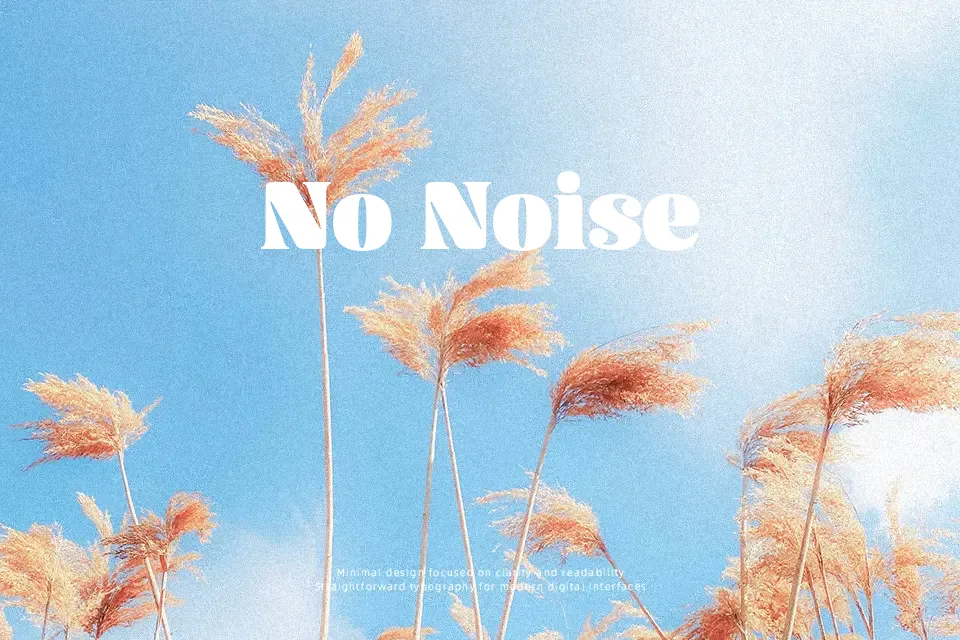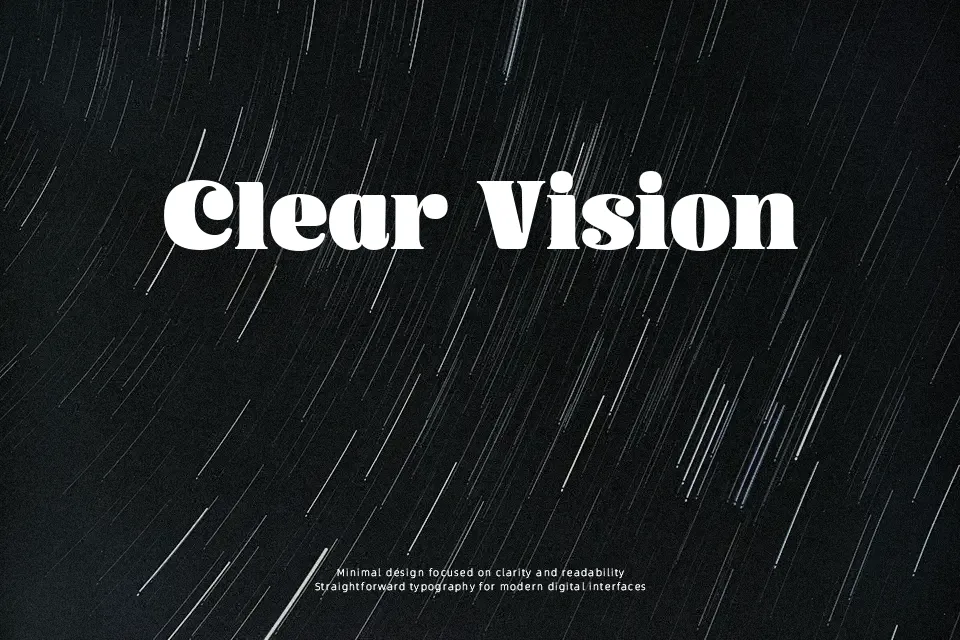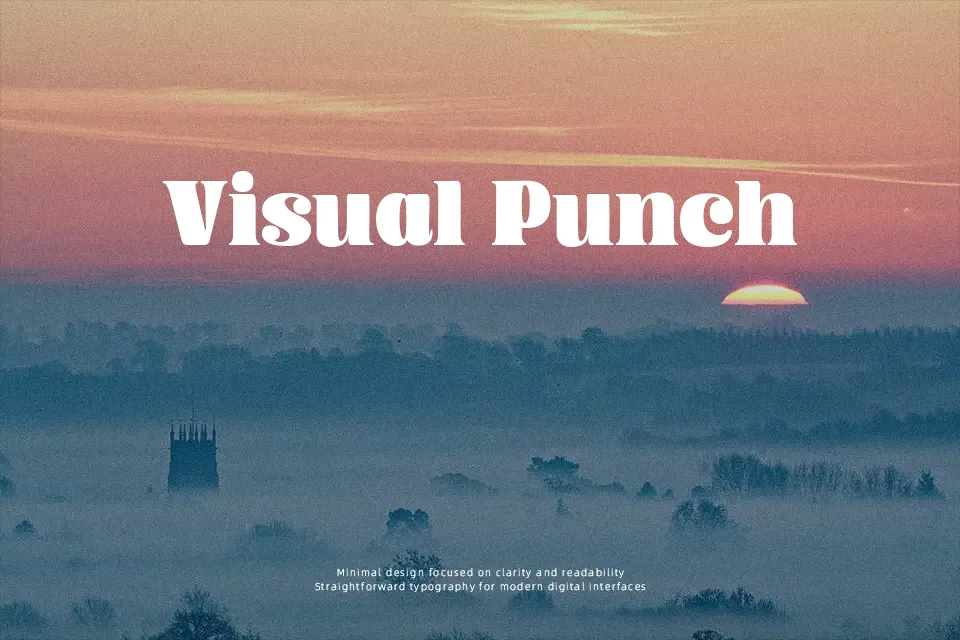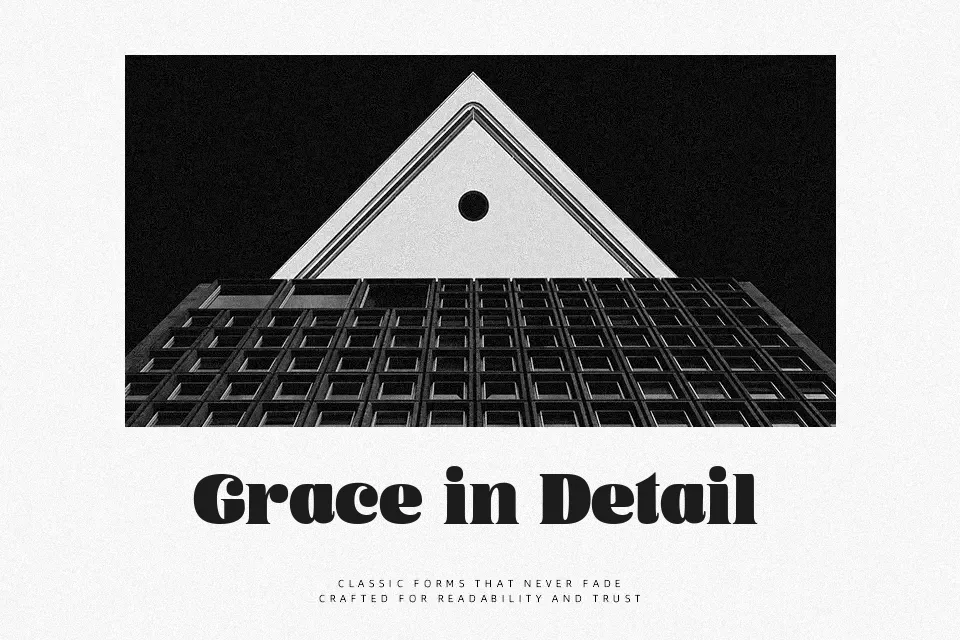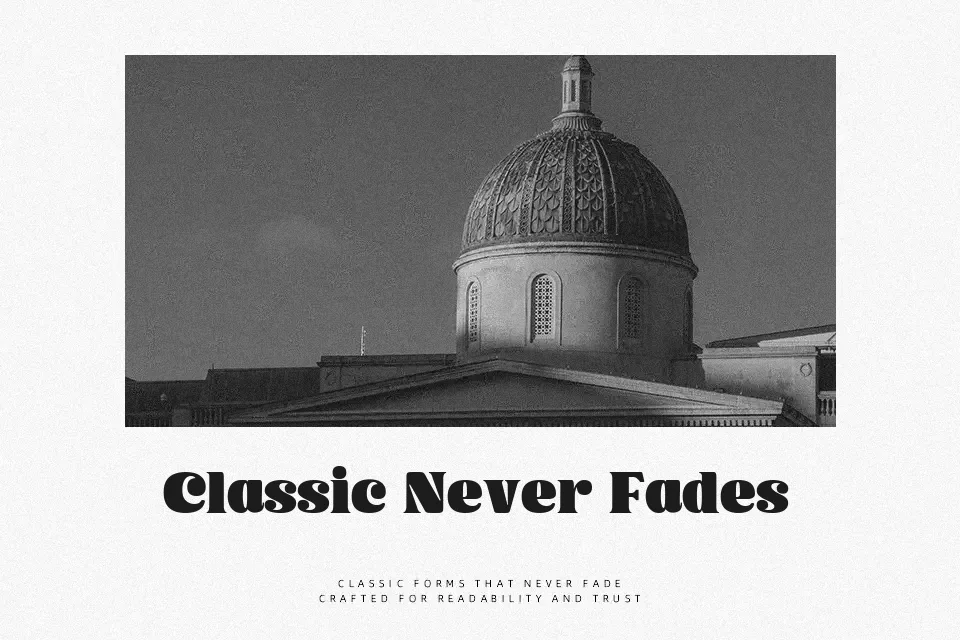
Canbera Font
Canbera Font leans into an older serif look, with chunky curves, tight spacing, and strong contrast that immediately reads as vintage on the page. The letterforms feel compact and slightly playful rather than strictly formal, so it behaves more like a display face than a book serif. In practice, it works nicely on branding experiments, retro badges, or title text where you can set it large and let the shapes breathe. It tends to feel heavy and characterful, which is a strength in posters and logotypes but a drawback in dense paragraphs or small UI labels. If you already use other retro serif display fonts, this one sits in the same family but pushes a bit more toward bold, rounded forms than classic book serifs.
retro logotypes and wordmarks
headline text on posters or flyers
vintage-flavored social media graphics
bold title text on packaging
long body copy or articles
small UI labels or captions
highly formal corporate reports
minimalist layouts that need very low-contrast type